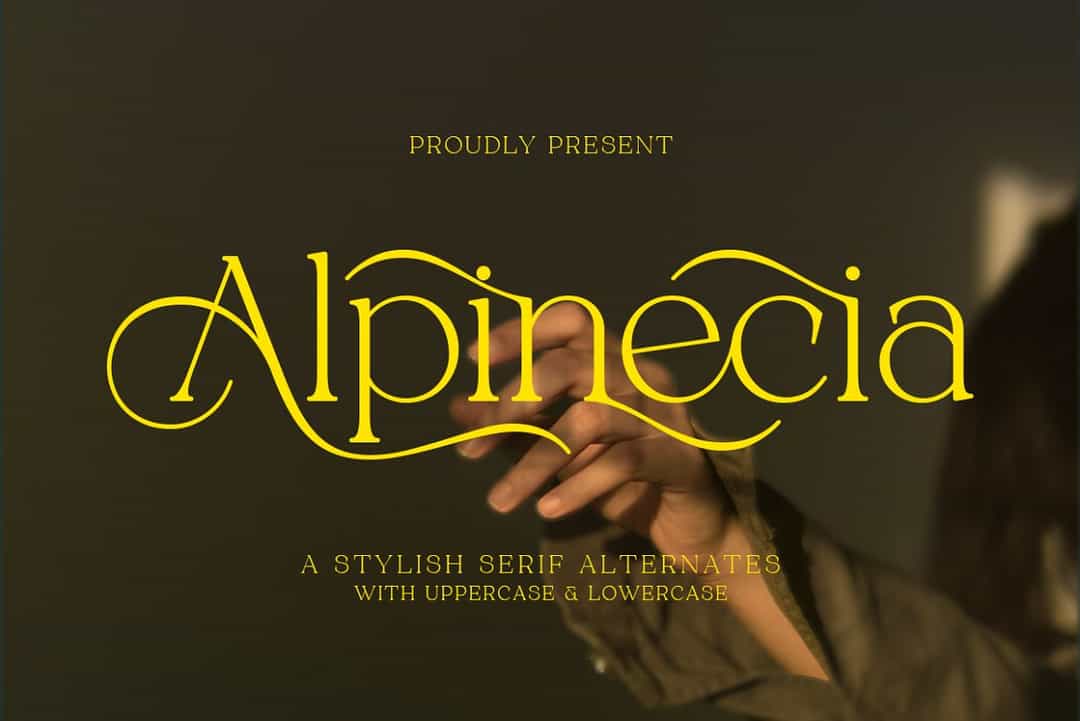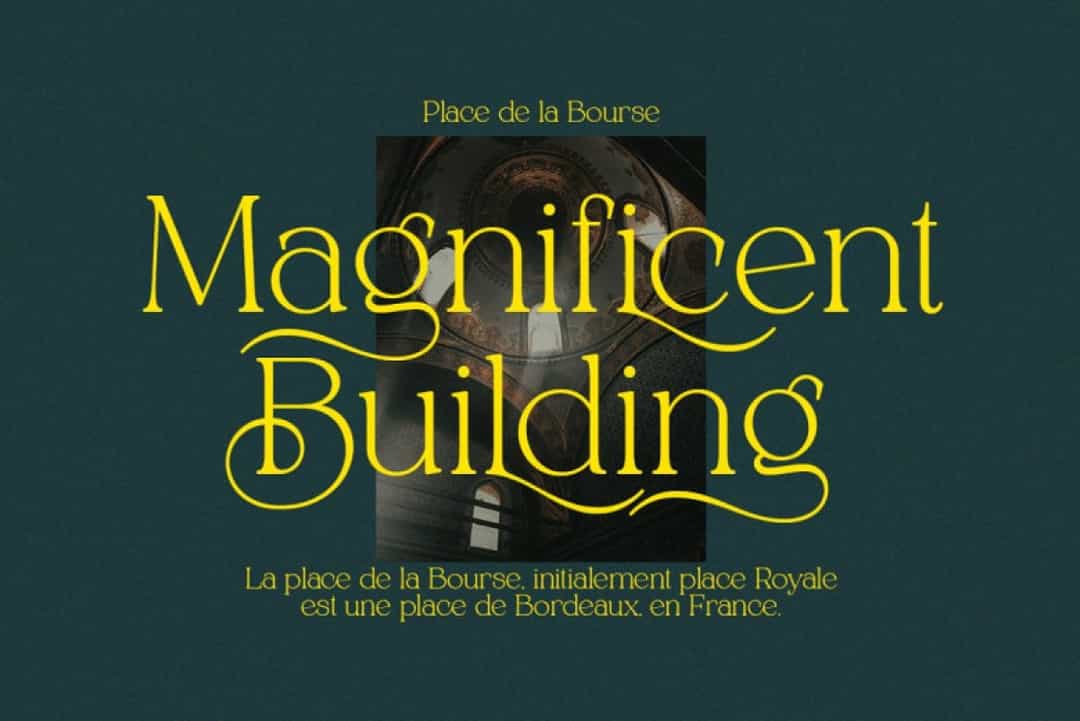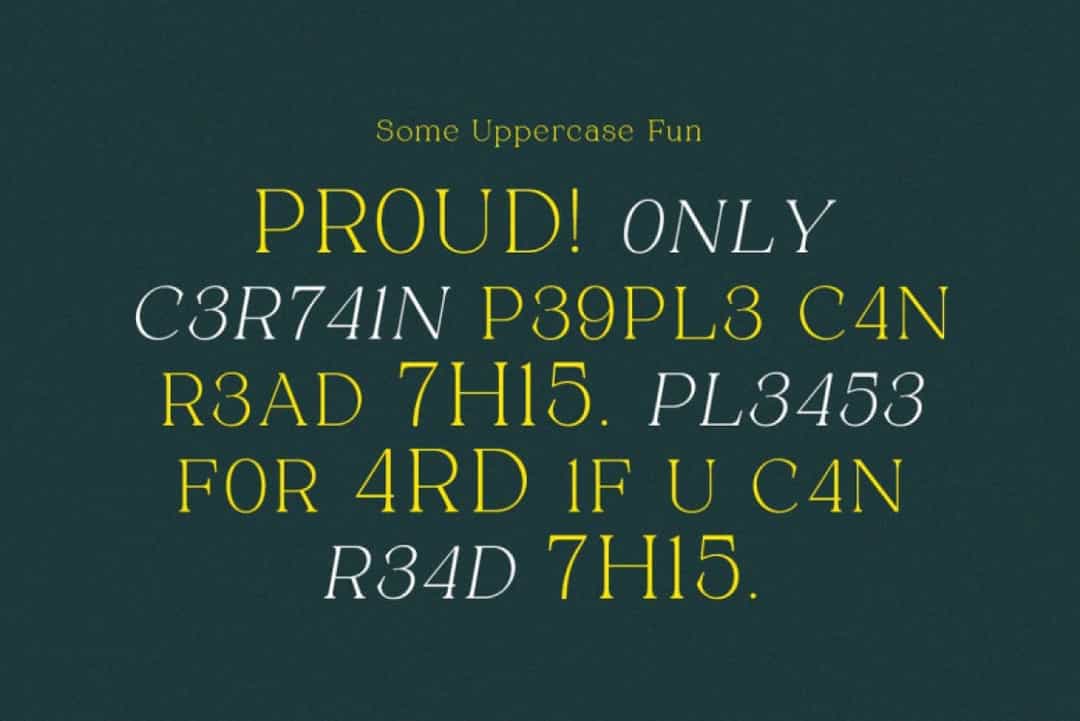
Alpinecia is a modern and stylish serif font ideal for luxury projects, making a strong statement when used to brand luxury products and services. Alpinecia’s classical aesthetic can easily match up with branding efforts of any kind, making Alpinecia an excellent font choice to match branding endeavors of all kinds! Plus, with numerous binding options and options to help customize Alpinecia to fit into any brand logo or header design scheme!